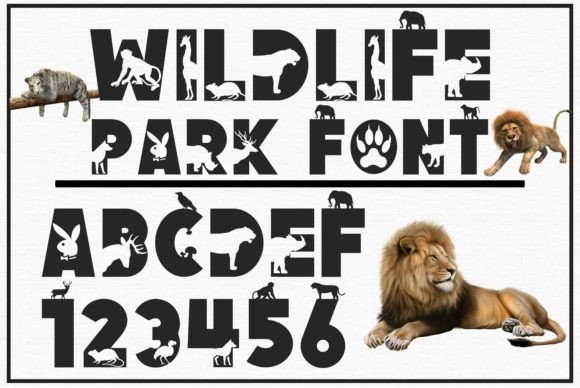
Looking for the perfect decorative font to add a playful touch to your next design project? Look no further than Wildlife Park Font, one of the best fonts for SVG designers on the market today!
Created by MDF, this font is full of personality and style, making it the perfect choice for anyone looking to inject some fun into their designs. Whether you're working on a project related to nature, adventure, or anything in between, Wildlife Park is sure to add a unique and eye-catching element to your work.
With its nature theme, Wildlife Park is perfect for designers looking to create designs that are both authentic and adventurous. And with its playful curves and bold lines, this font is sure to make a statement no matter how you choose to use it.